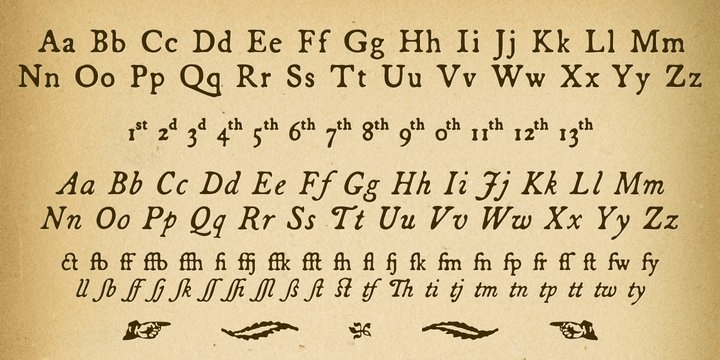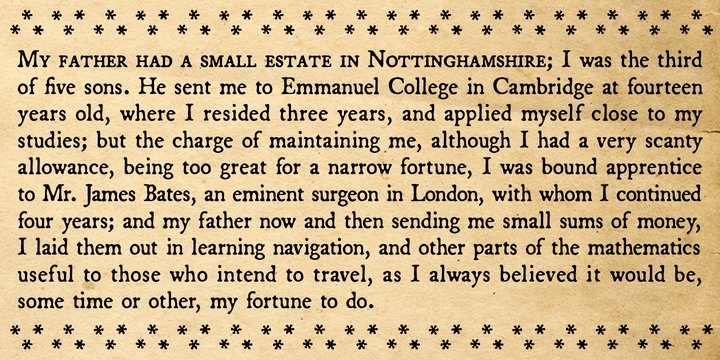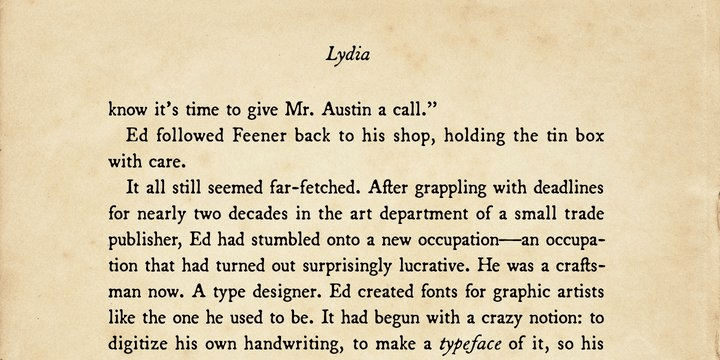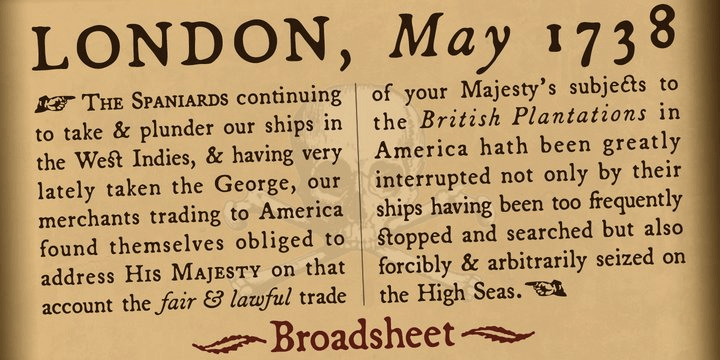
About Broadsheet
A full-featured typeface that simulates old newspaper text from the 1700s, Broadsheet gives you all the ?long s? ligatures you could ever dream of. Wonderfully authentic in either display type or long blocks of body copy. Includes a couple printer\’s…